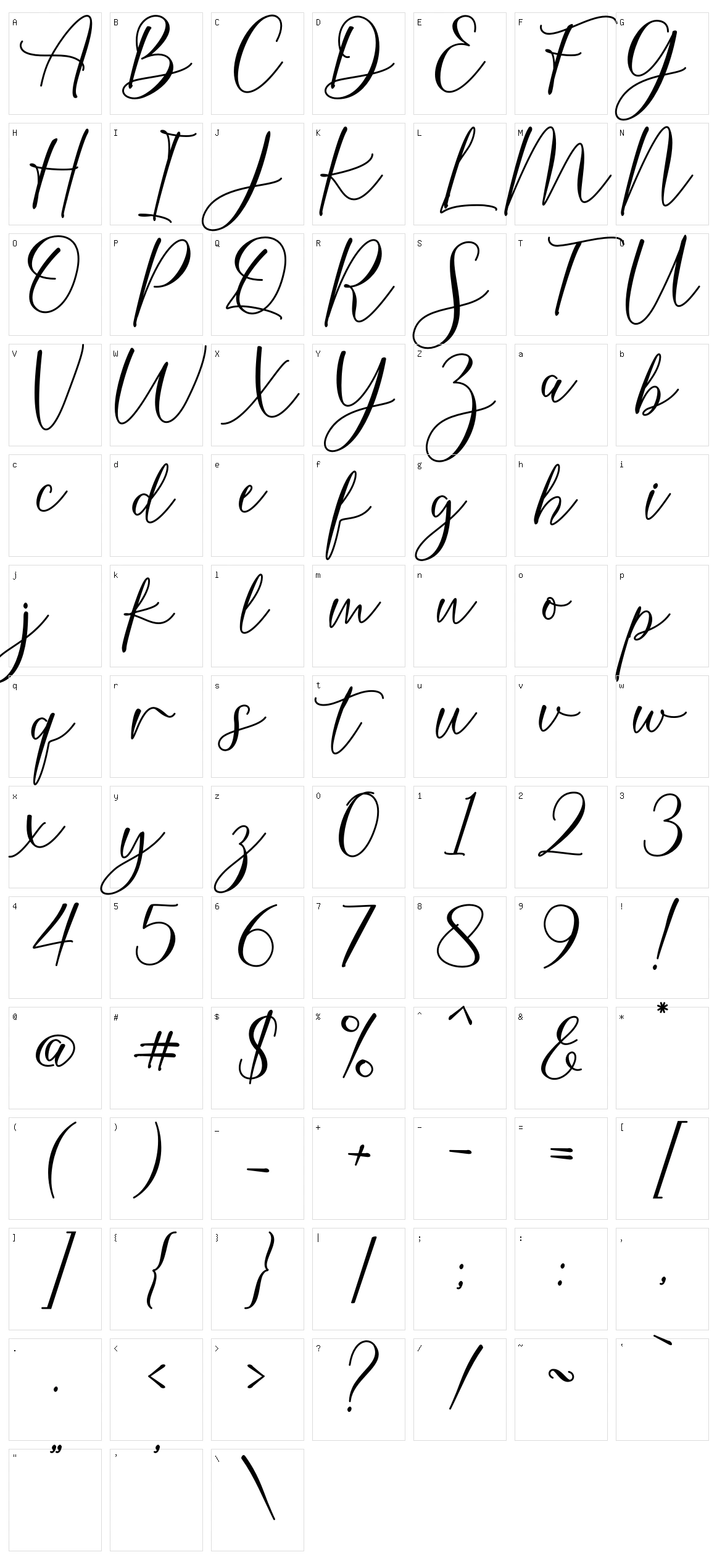
The free font Burnette is carefully designed by Tikara Sari, showcasing a thoughtful balance of creativity and usability and falls under the Script font style. When you download the ZIP file, it contains only 29.72 KB of font files, making it lightweight and quick to download. Please review the license details below to understand permitted usage and distribution rights. If license information is not available, we recommend using this font for personal projects only or contacting the author directly for commercial usage permissions.